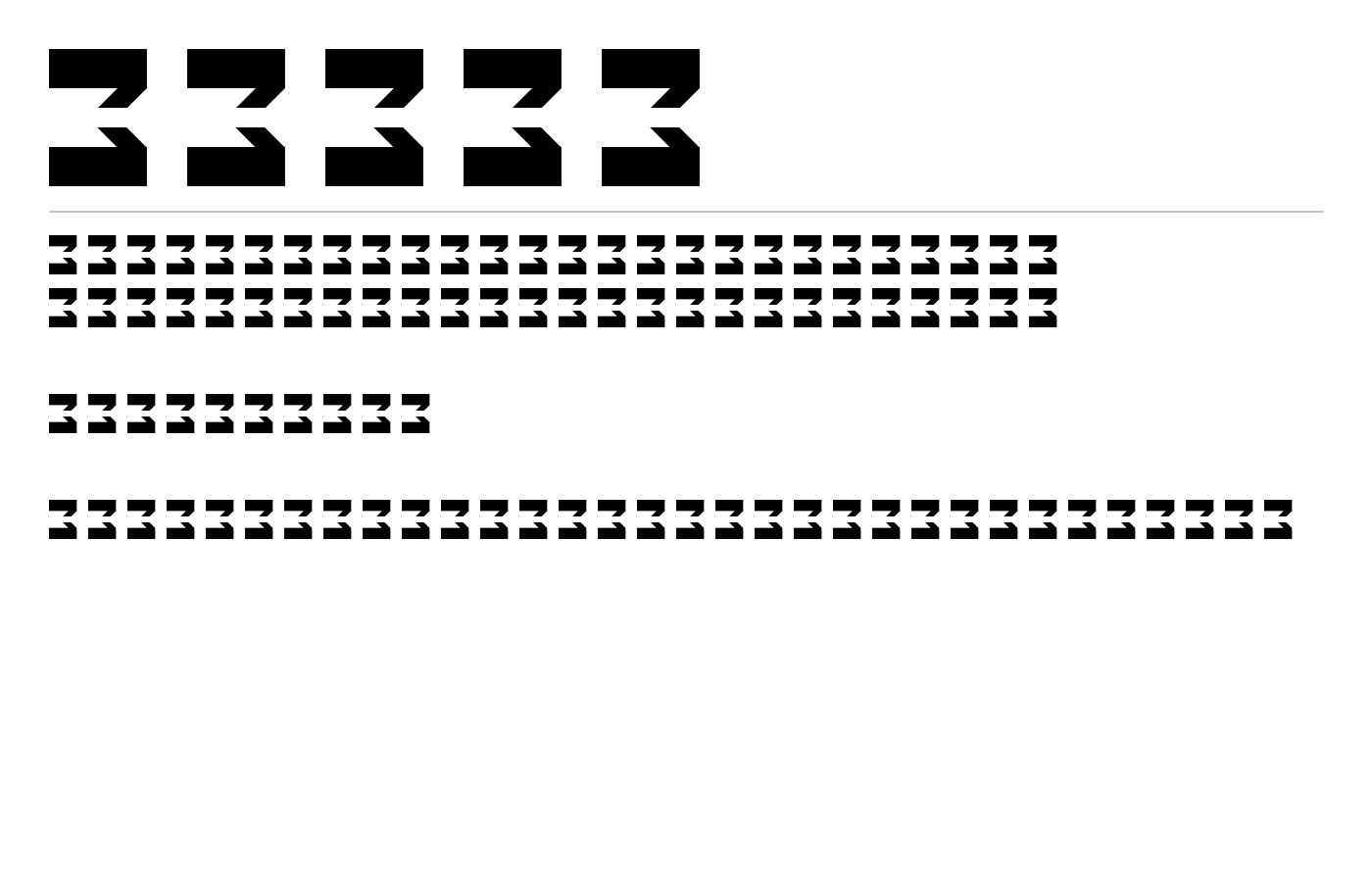
Anime Font is a bold, geometric sans-serif typeface characterized by its thick, blocky shapes and sharp angles. With its high contrast between solid black areas and the white cutouts, it delivers a futuristic, tech-inspired feel that works well for headlines, logos, and graphic-heavy designs needing a strong visual impact. This font is ideal for projects related to gaming, anime culture, or modern digital aesthetics where a striking, modern personality is desired.
Anime Font
About Anime Font